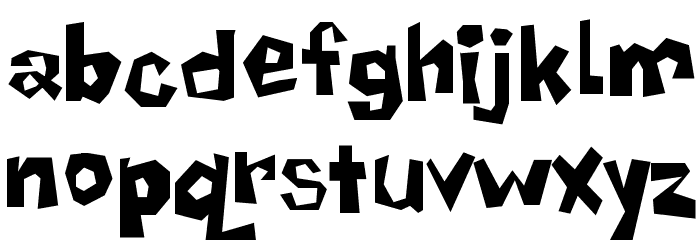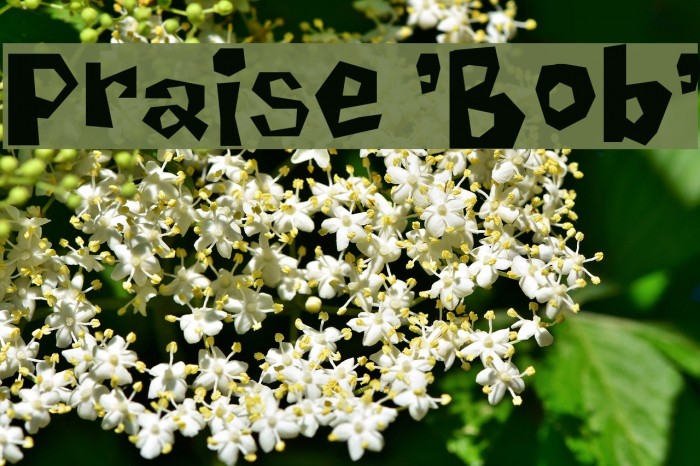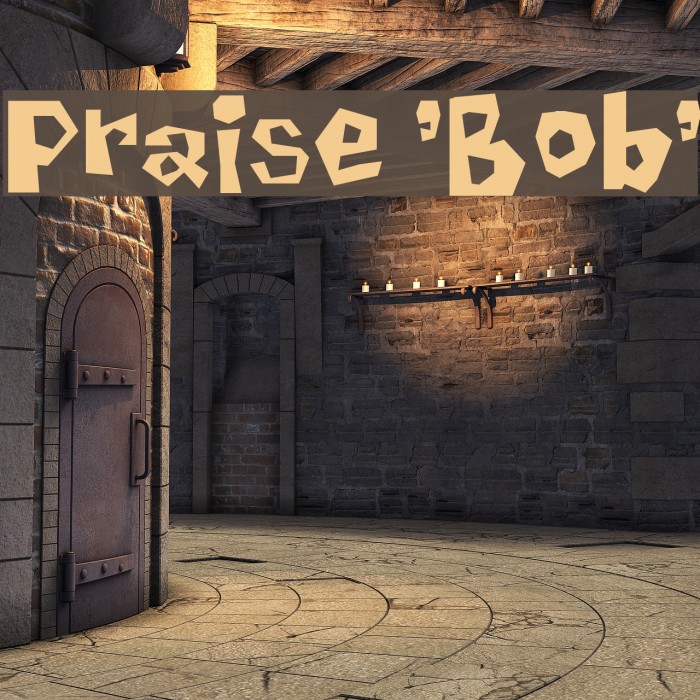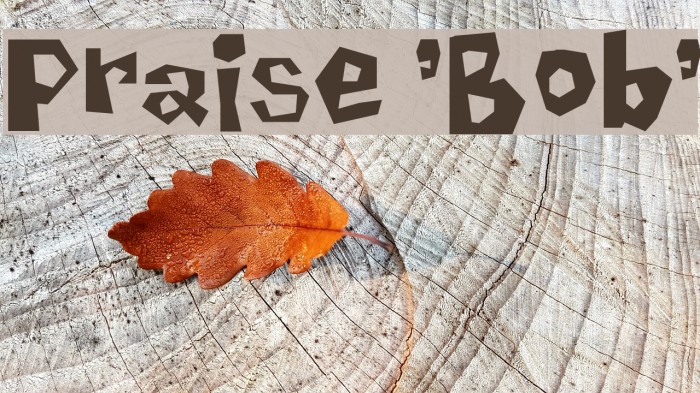
Praise 'Bob' Font
This font features a bold and playful design with an irregular, jagged appearance. Each character is uniquely shaped, giving it a hand-cut, almost collage-like feel. The uppercase and lowercase letters maintain a consistent style, with sharp angles and varying line thicknesses that create a dynamic visual impact. Numbers and special characters follow the same aesthetic, ensuring a cohesive look across all text elements. The font's quirky and energetic style makes it stand out, perfect for projects that require a bold statement.
A bold, playful font with an irregular, jagged design.
- Font: Praise 'Bob'
- Proposed Projects: Ideal for posters, album covers, children's books, and creative branding projects.